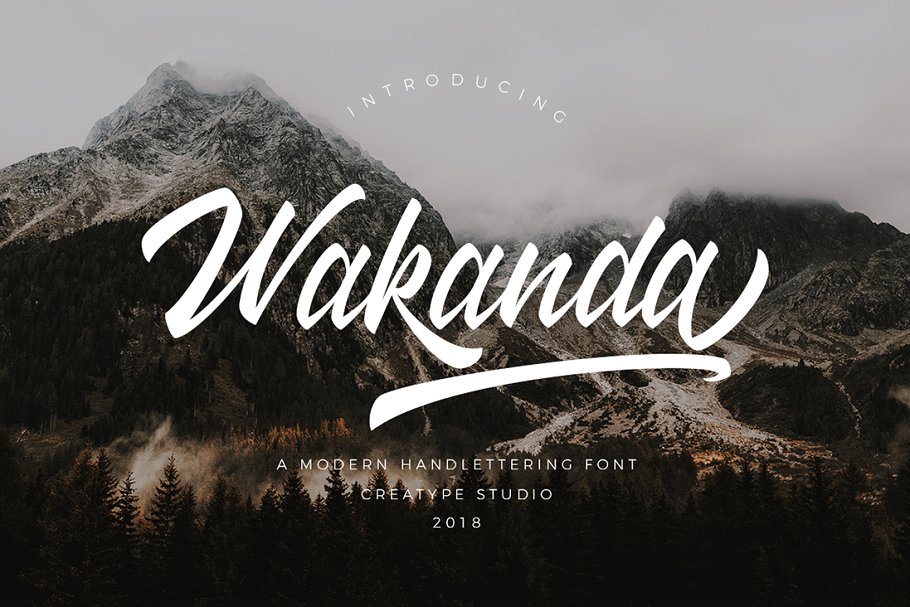
Wakanda Handwritten Script Font Freebie
Wakanda Script Font — Freebie
A stylish, modern hand-lettered script available as a freebie. Wakanda Script Font is ideal for adding a refined, handwritten touch to a wide range of projects and is licensed for commercial use with an Extended Use License.
Highlights
• Stylish, modern hand letter script typeface
• PUA-encoded characters for easy access to special glyphs
Recommended uses
Great for:
• Logos & branding
• Invitations, stationery & wedding designs
• Social media posts & advertisements
• Product packaging & product design
• Labels, photography watermarks & special events